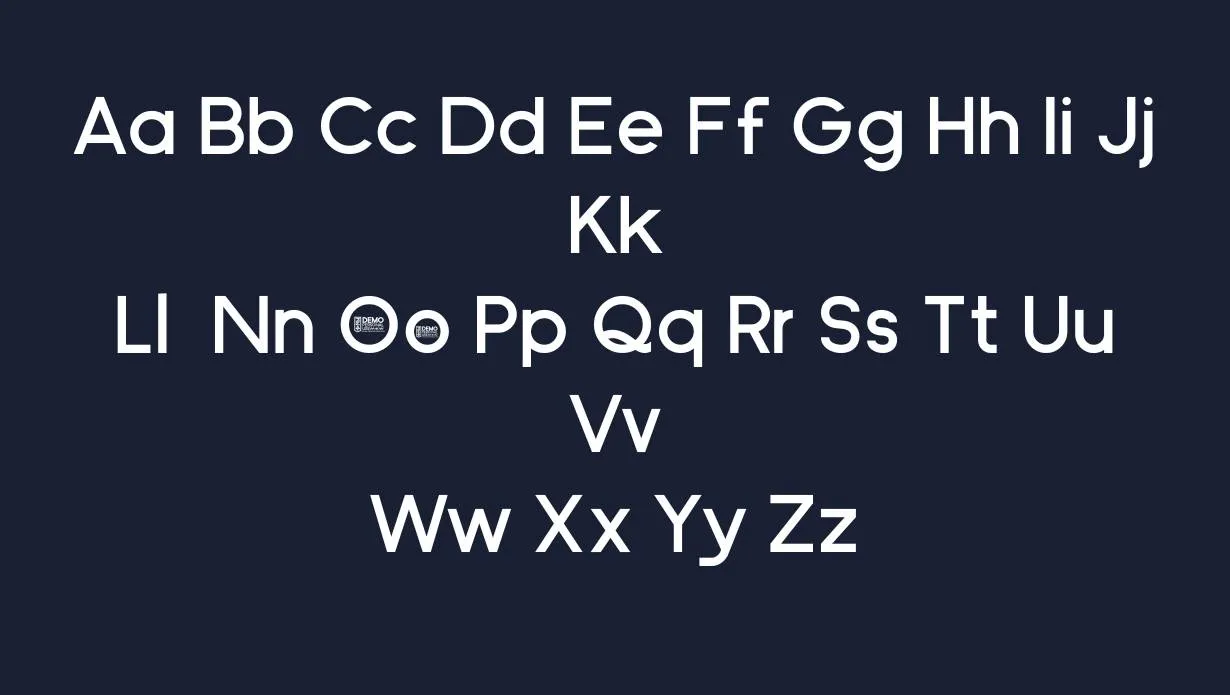
The Zilap Universal font is a versatile and contemporary typeface that adapts to various design styles. Its sleek and modern appearance makes it suitable for a wide range of applications.
Whether you’re working on a tech website, a fashion magazine, or any project that requires a cutting-edge aesthetic, the Zilap Universal font adds a touch of sophistication to your words. Let your text transcend boundaries with the universal appeal of this modern and adaptable font.
| Name | Zilap Universal Font |
| Designer | Luis Jaramillo |